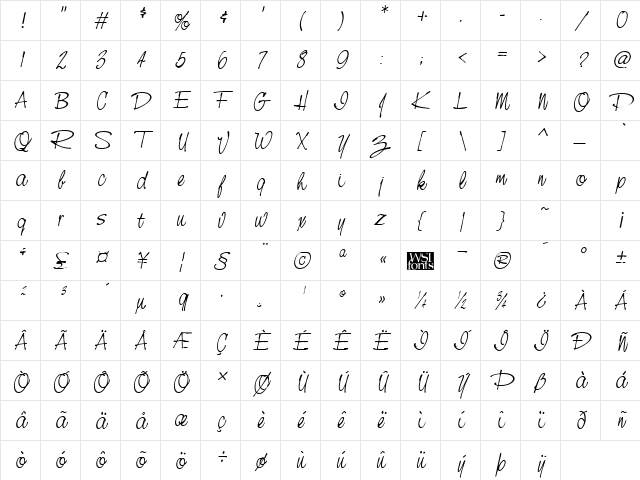
NevilleScript Italic
Design Context for NevilleScript
NevilleScript flows with the natural rhythm of handwritten lettering, making it ideal for designs that call for warmth and personal expression.
Font Pairing: Combine NevilleScript with a simple geometric sans for maximum contrast - the tension between flowing curves and clean structure is a classic typographic pairing.
Pro Tip: Use NevilleScript for short runs of text - names, titles, or taglines. Extended body copy in script faces tires the eye quickly.